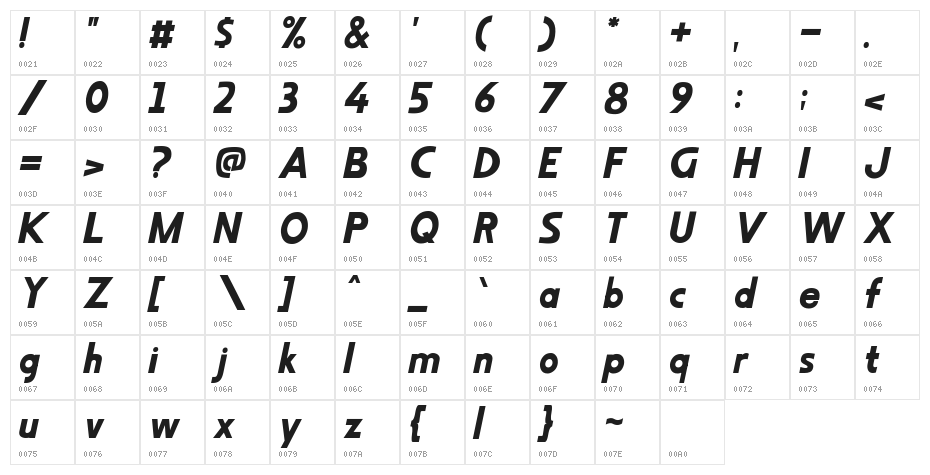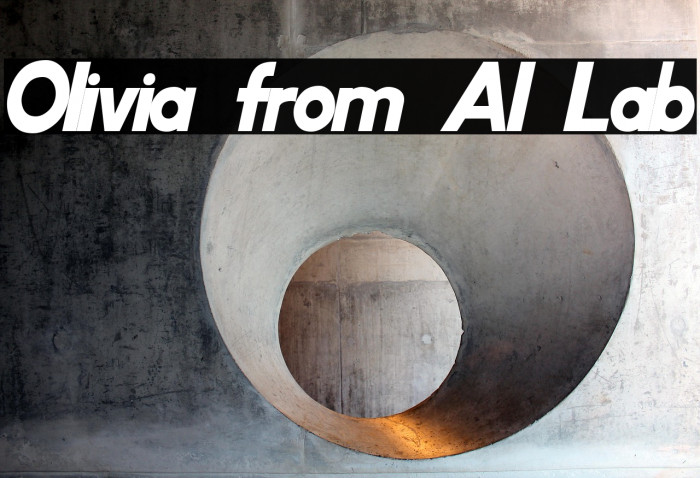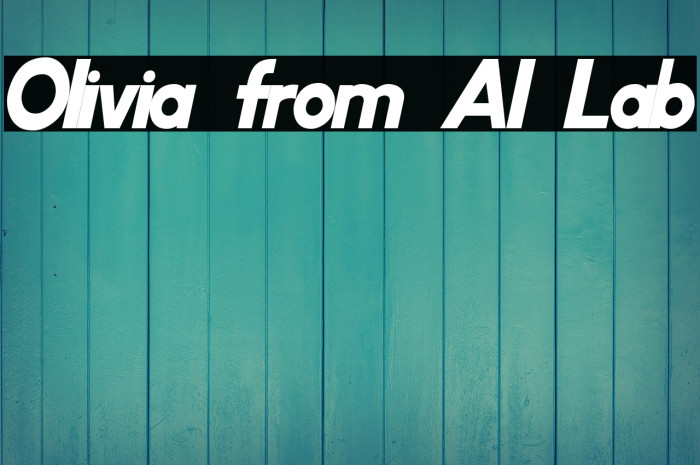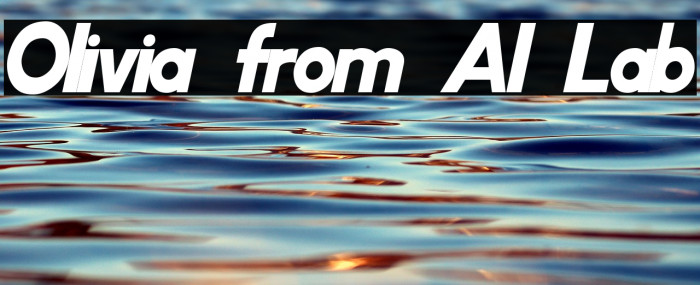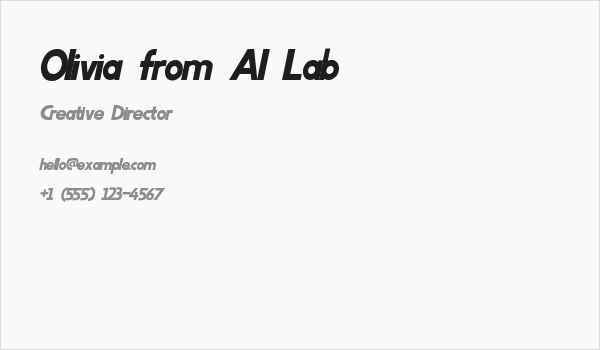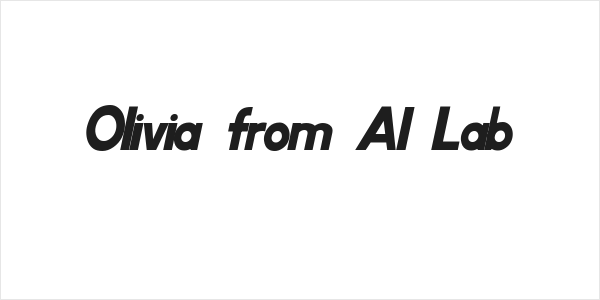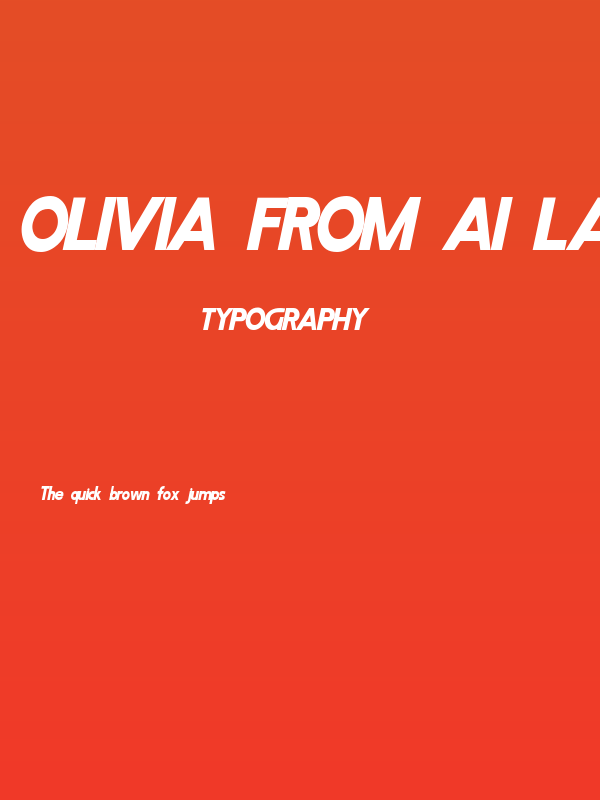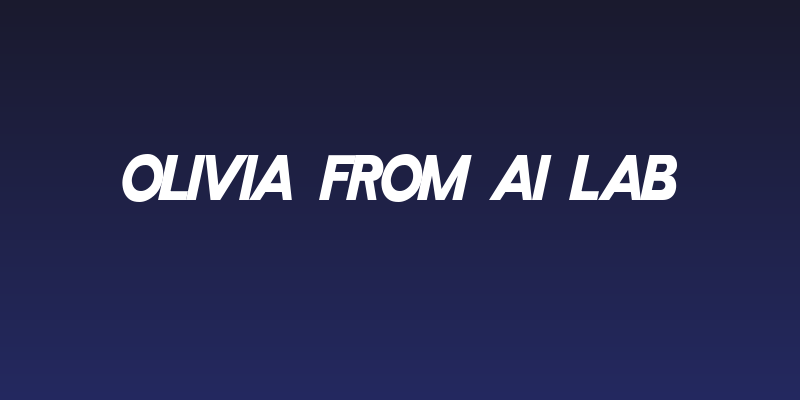
Olivia from AI Lab Font
Olivia from AI Lab Description
This font features a bold and dynamic design with a strong italic slant, giving it a sense of motion and energy. The characters are well-defined with a consistent stroke width, creating a uniform appearance across both uppercase and lowercase letters. The numerals and special characters maintain the same boldness and slant, ensuring a cohesive look. The font's modern style is accentuated by its clean lines and lack of serifs, making it highly legible and suitable for various applications.
Use CaseHeadlines, Logos, Advertising
Proposed ProjectsIdeal for branding, advertising, and headlines where a strong, modern impression is desired.